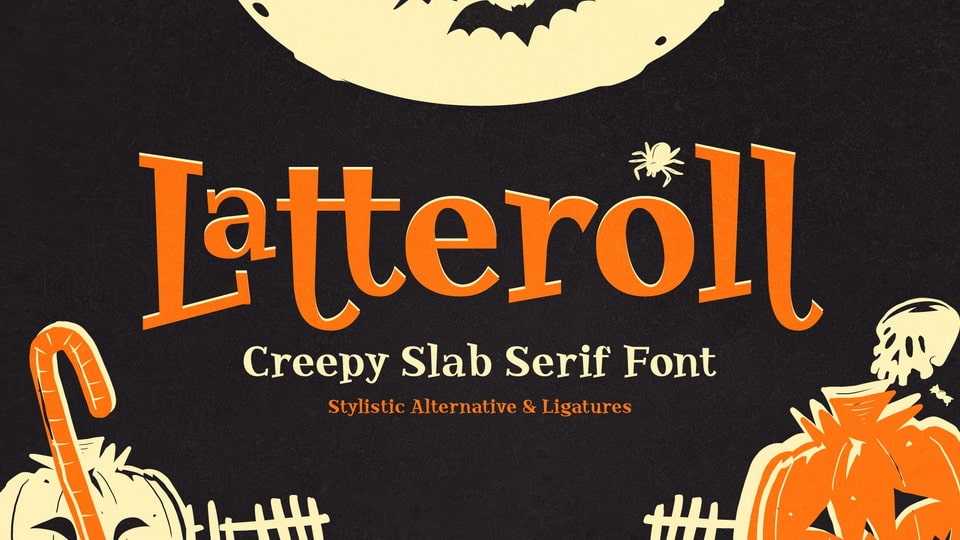
Download Latteroll font, a creepy slab serif typeface. Latteroll is very suitable for inclusion in Halloween and playful themes.
Designer: Drizy Studio